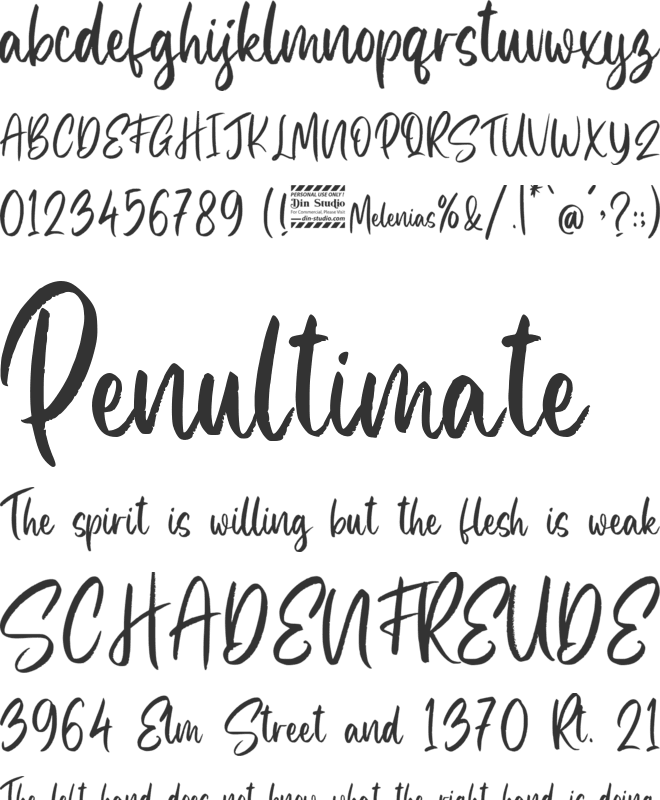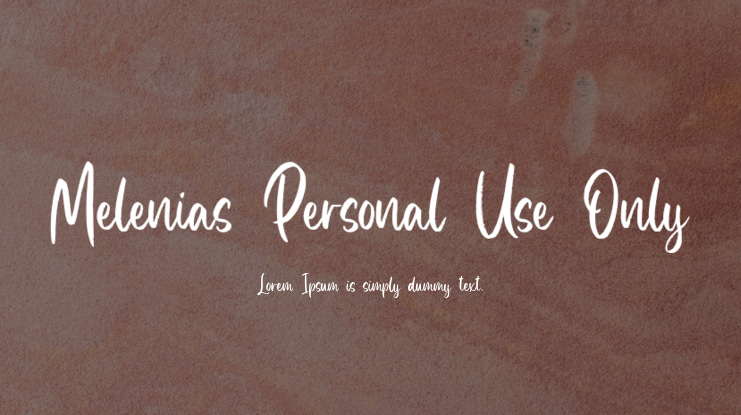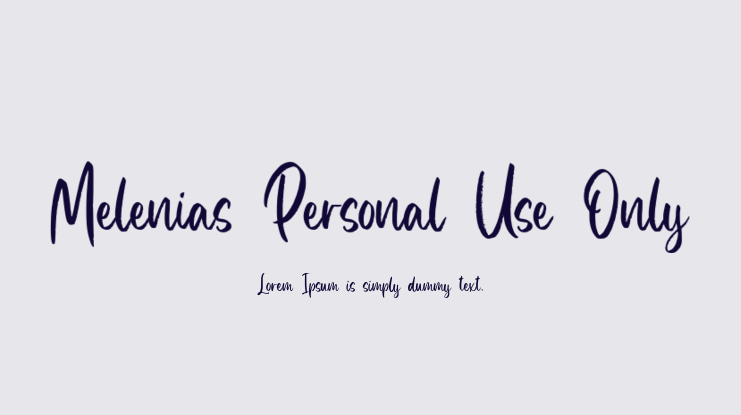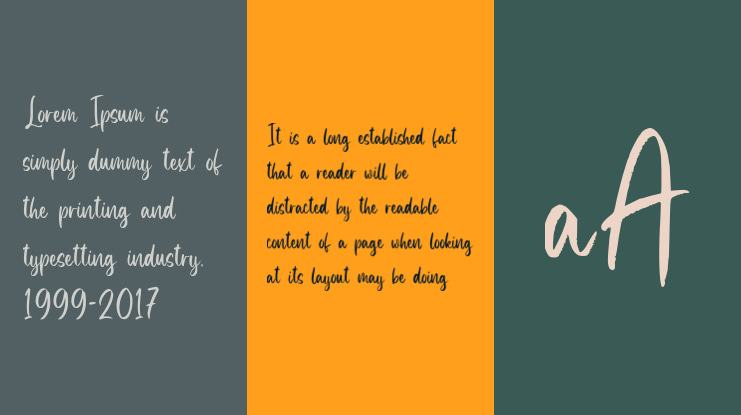
Melenias is a casual brush font. Made for any professional project branding such as social media campaign, ads, wedding invitation, merchandise, and more. Every letter has a unique and beautiful touch.
• Multilingual Supports
• PUA Encoded
• Numerals and Punctuations